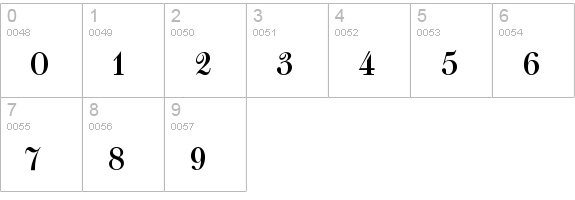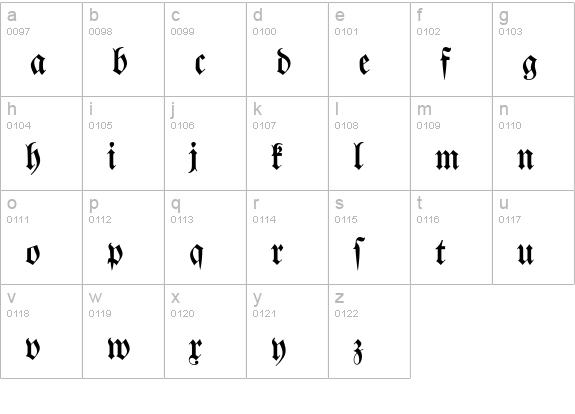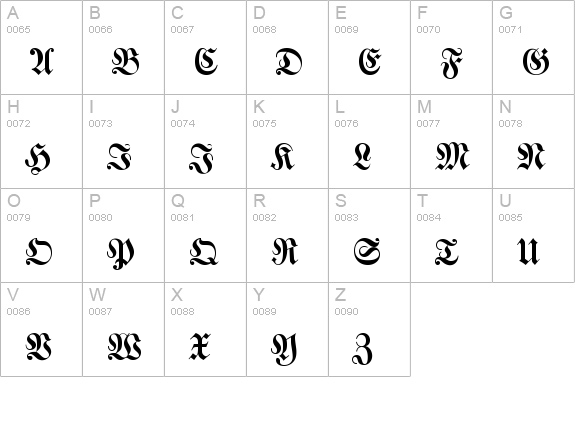
WalbaumFrakturEF Font Details
WalbaumFrakturEF is a stunning and elegant font that embodies the timeless beauty of traditional Fraktur typography. With its intricate letterforms and delicate curves, this font exudes a sense of sophistication and refinement. Each character is meticulously crafted to capture the essence of classic Fraktur fonts, with its sharp angles and ornamental details. The overall effect is a harmonious balance between tradition and modernity, making WalbaumFrakturEF a versatile choice for a wide range of design projects. What sets this font apart is that it is not only visually captivating but also freely available for download. This means that designers, artists, and enthusiasts alike can access and utilize this remarkable font without any restrictions. It is an exceptional opportunity to enhance your creative endeavors without any financial burden. To access this font, simply visit FontsMarket.com, where it is readily available for download. Whether you are working on a personal project, a professional assignment, or simply exploring the world of typography, WalbaumFrakturEF is a font that will undoubtedly elevate your designs and captivate your audience. Enjoy the freedom and creativity that this font brings to your work.